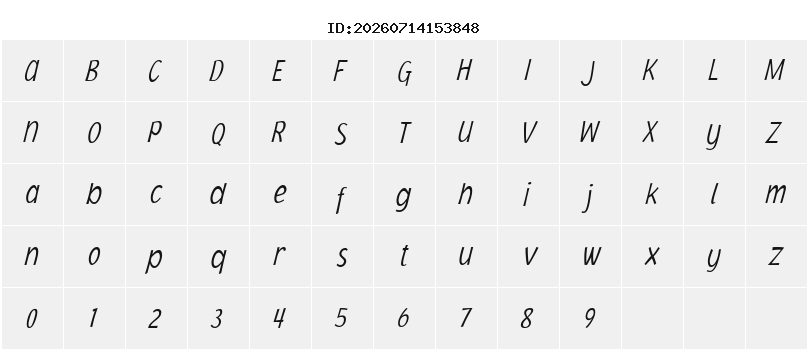
• Font Name: Jacoby Cond ICG
• Font Style: XLightItalic
• Full Font Name: Jacoby Cond ICG XLightItalic
• PostScript Name: JacobyCondICGXLightItalic
About Jacoby Cond ICG.ttf
Jacoby Cond ICG.ttf is a modern, elegant sans-serif font designed for ultimate readability and visual harmony. Perfect for branding, headlines, web design, and print materials.